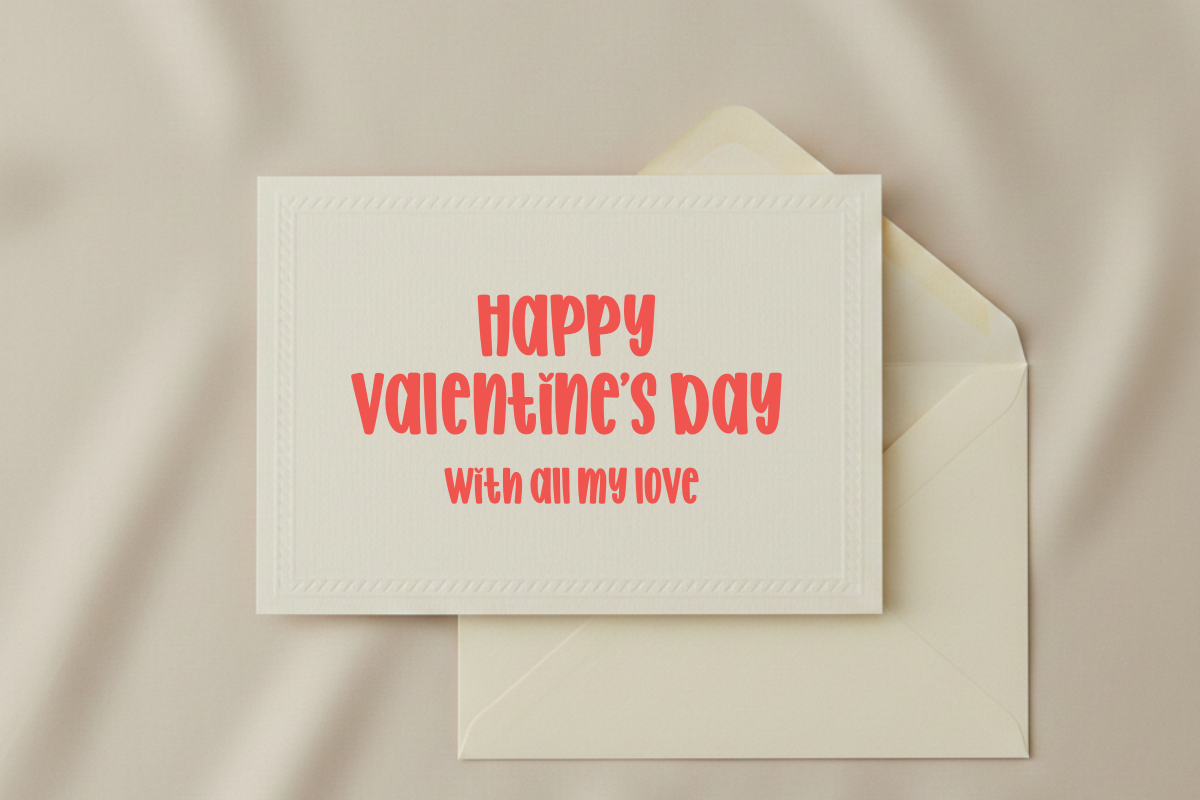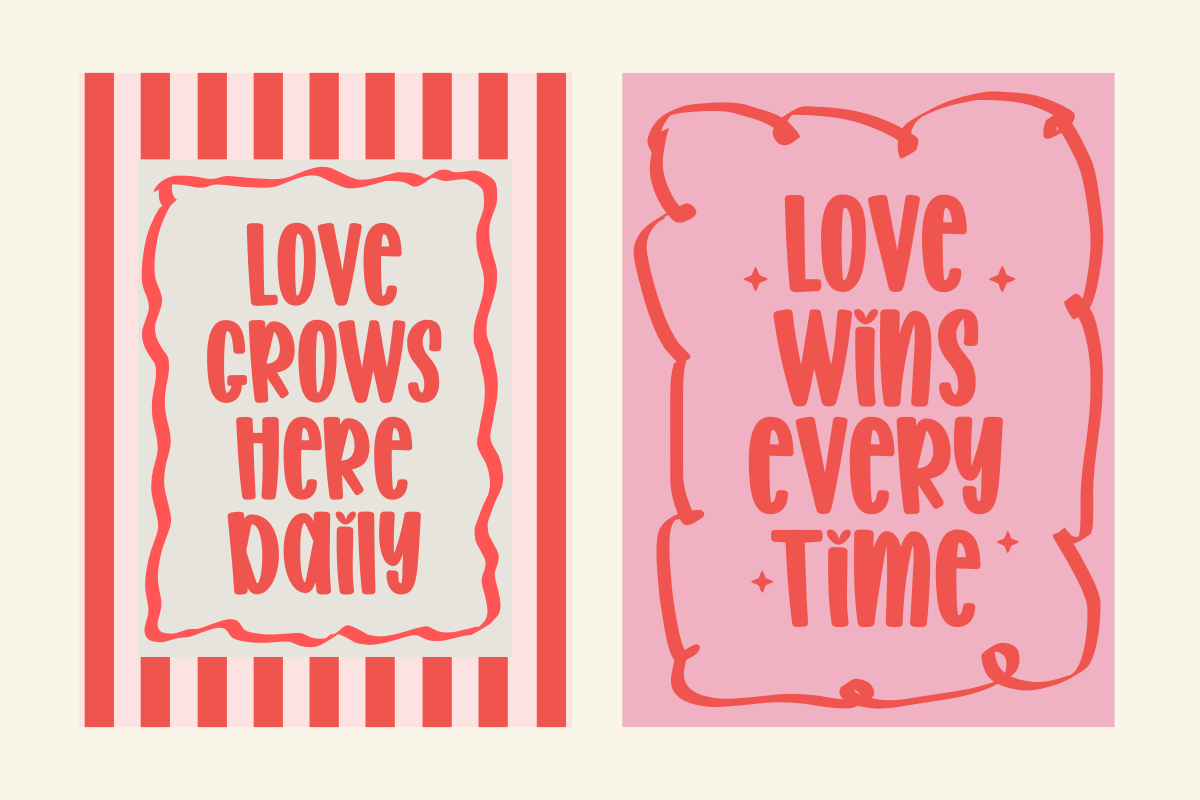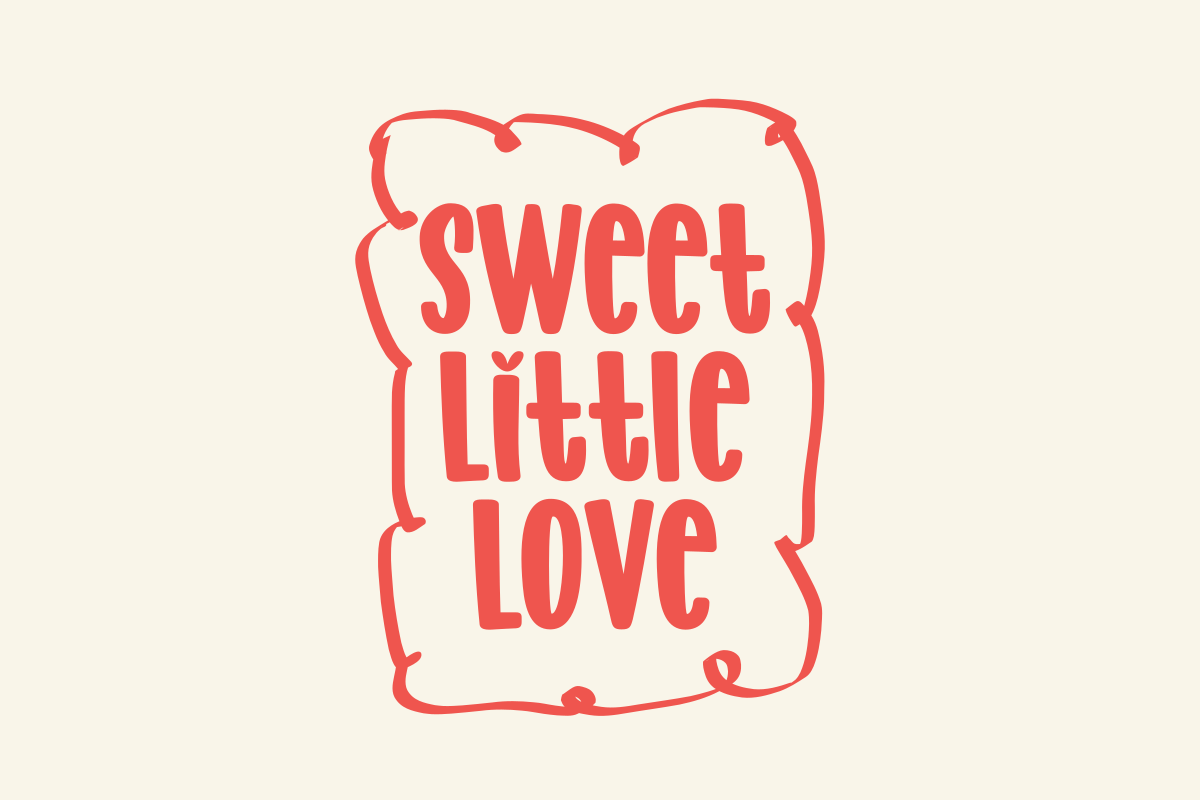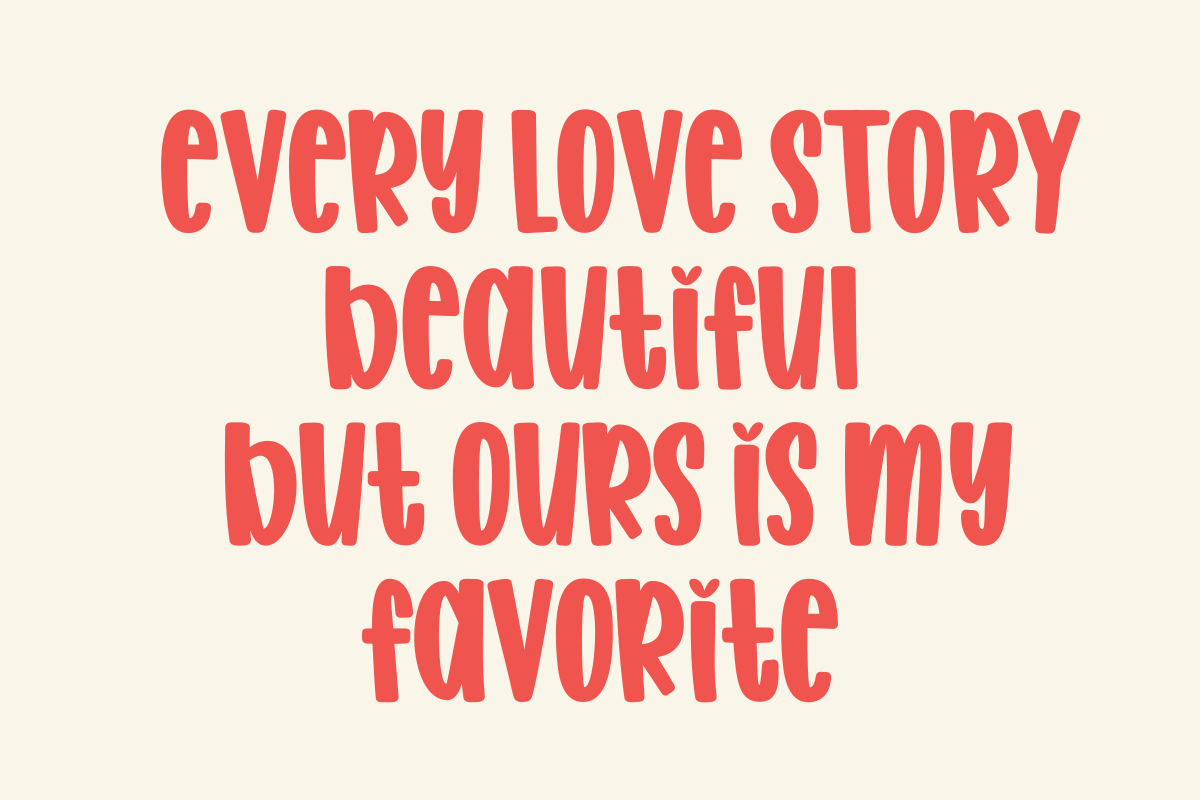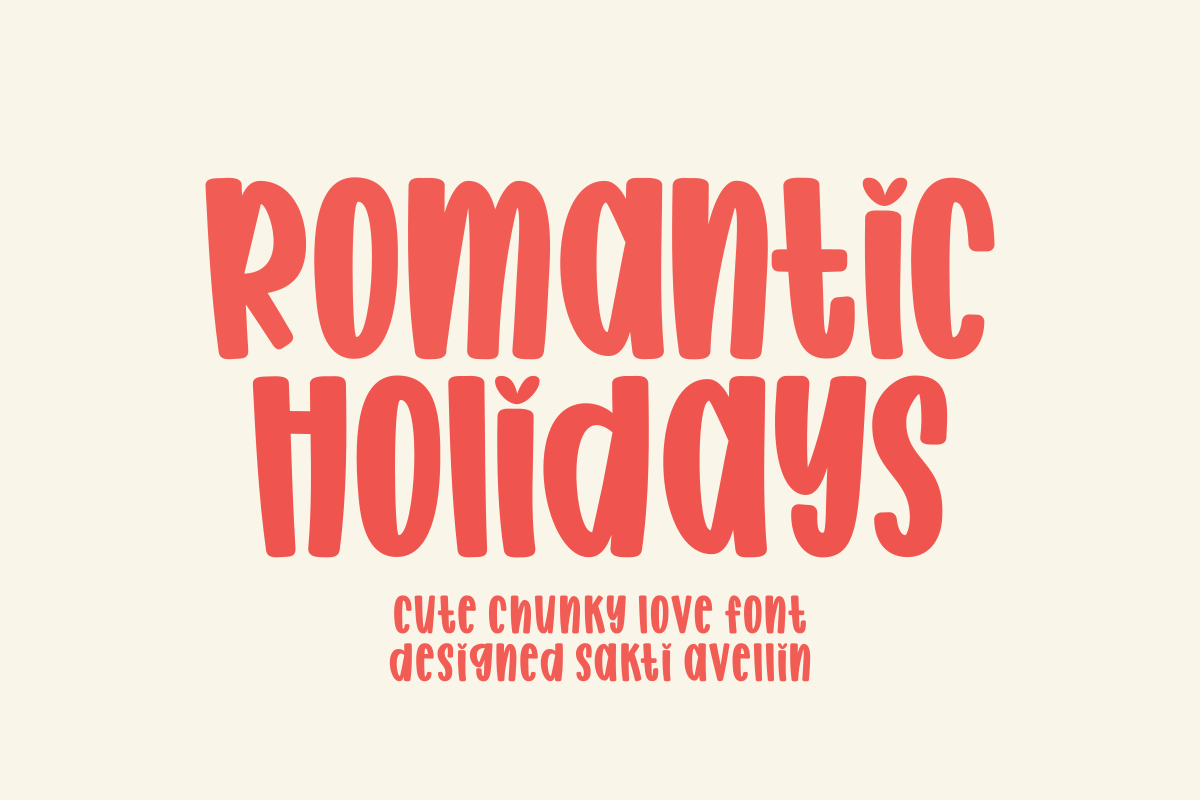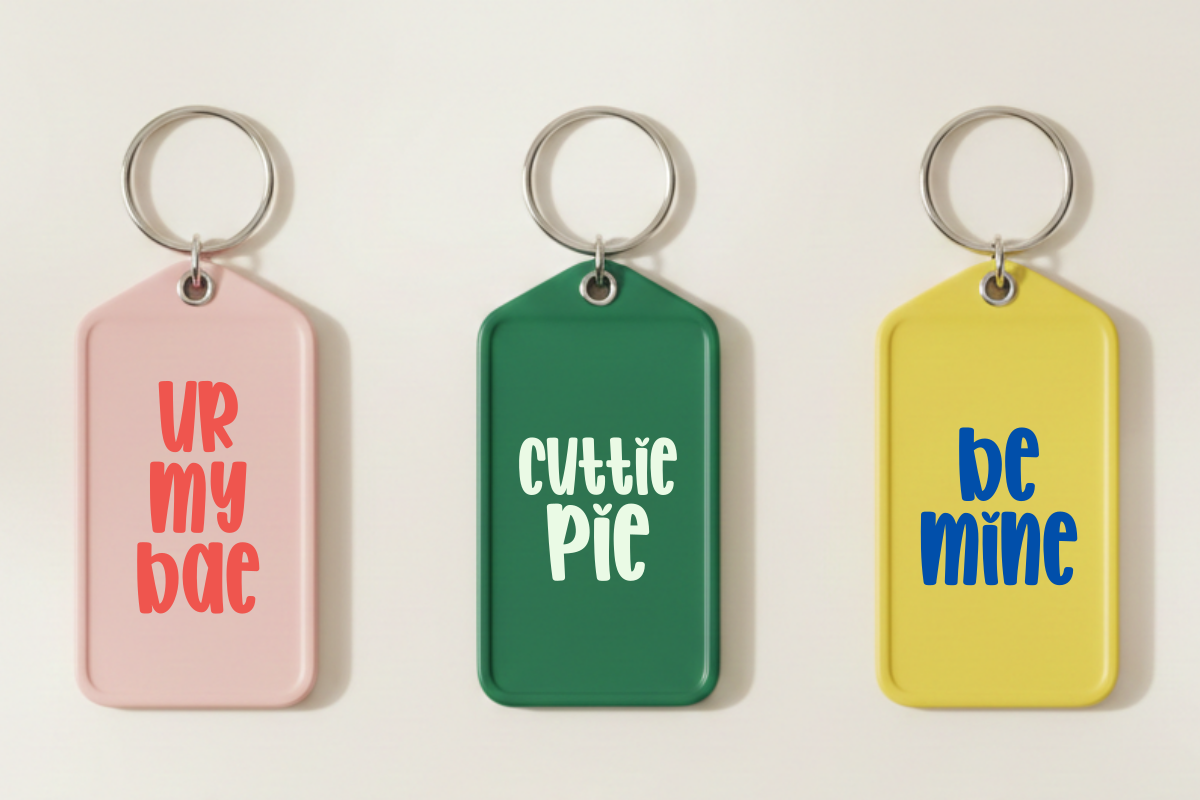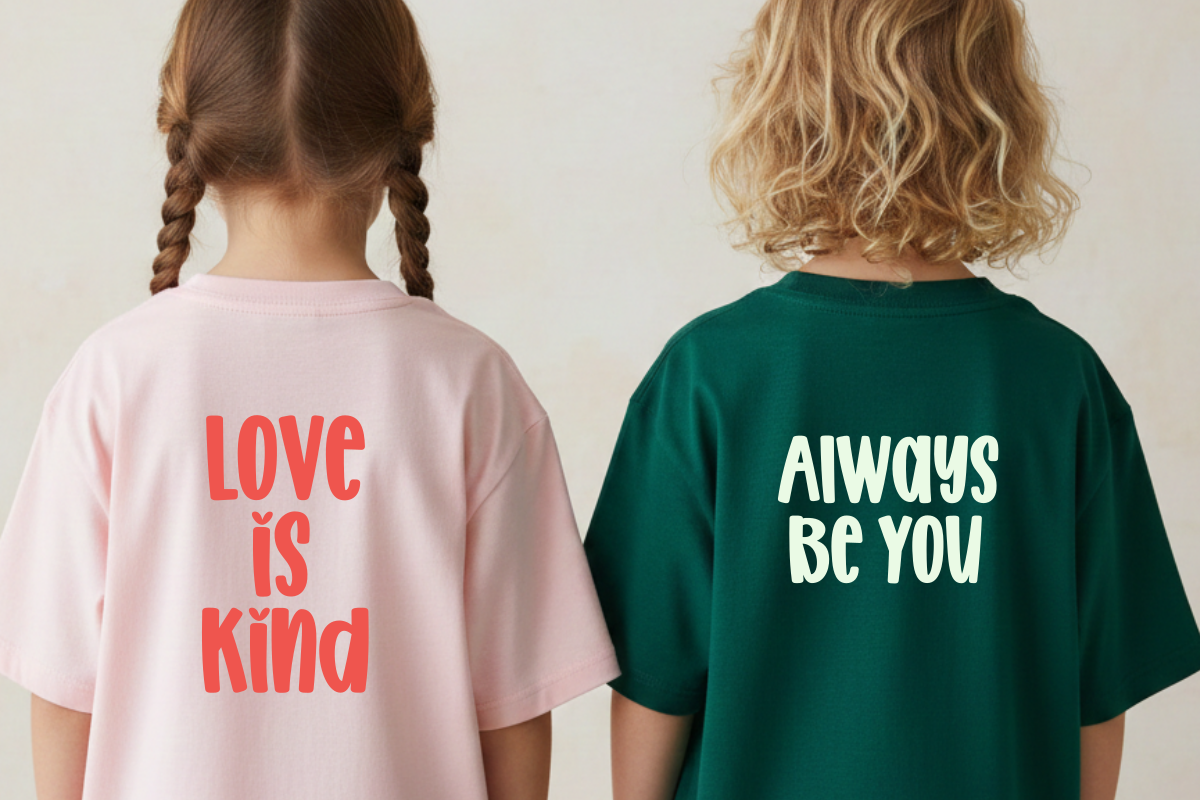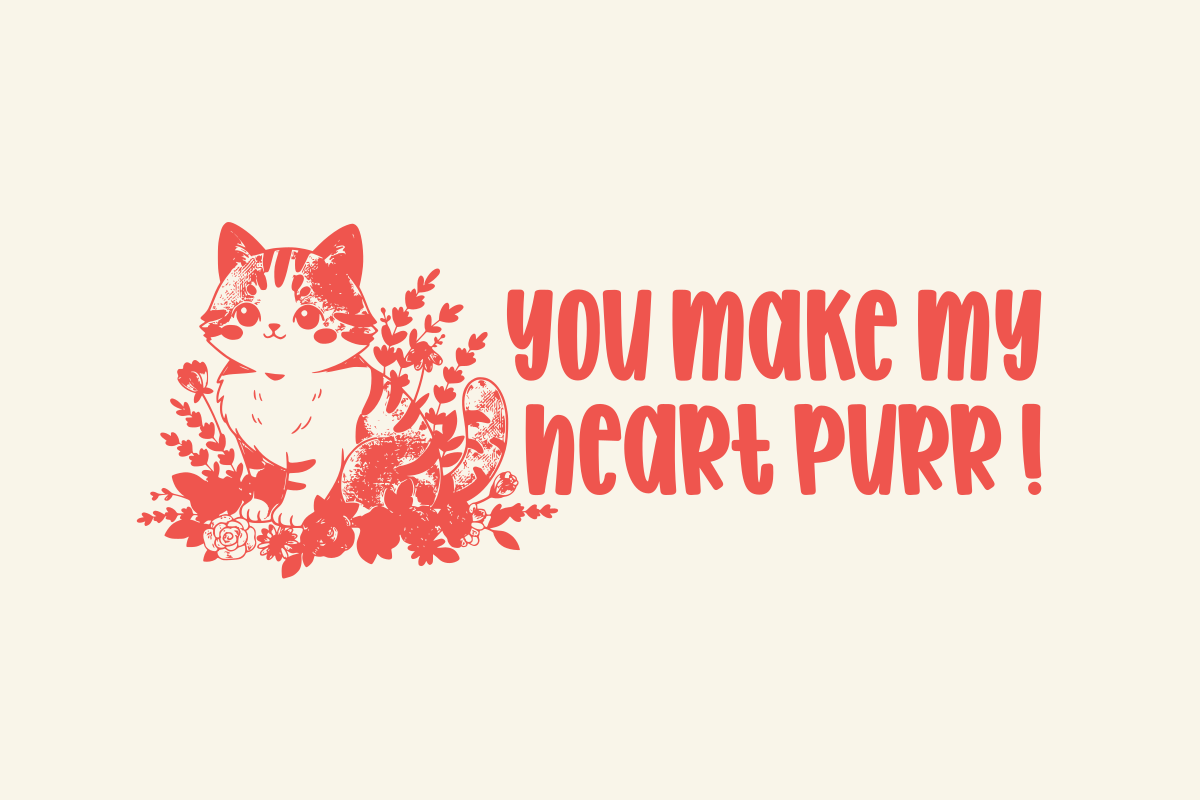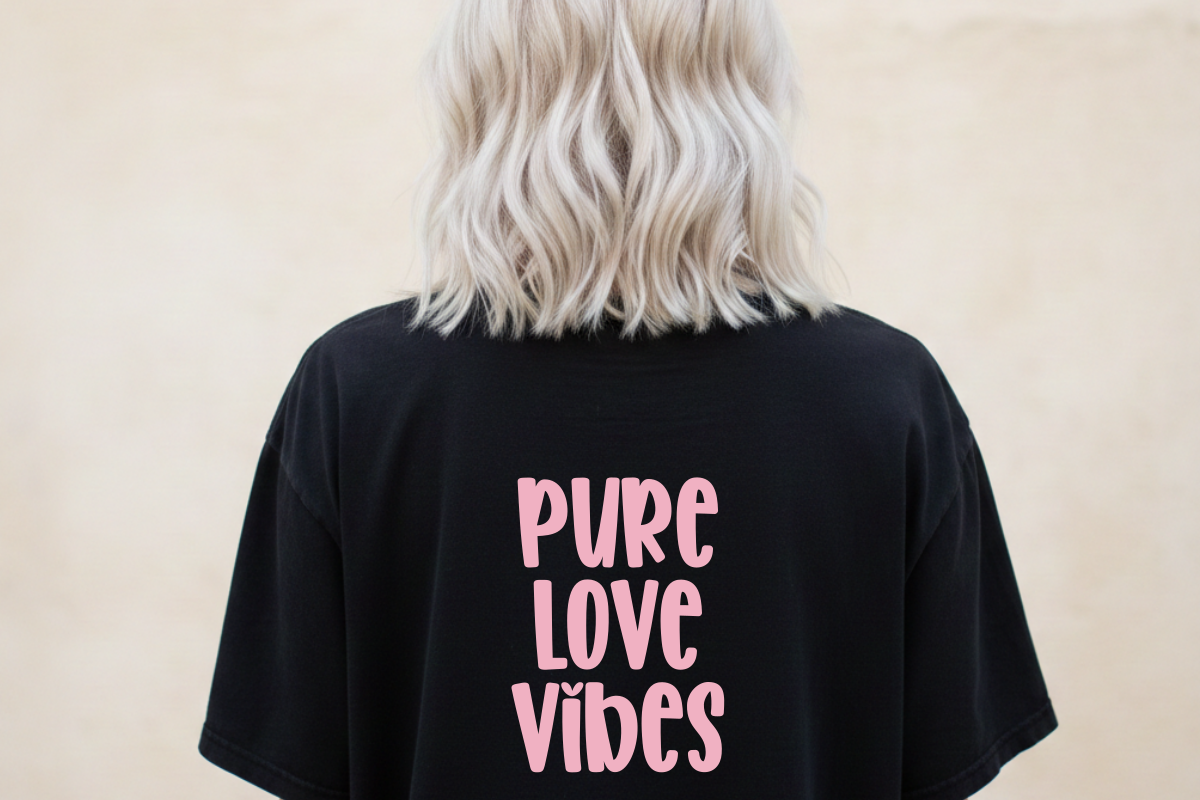
Romantic Holidays - Cute Chunky Font
Romantic Holidays is a cute chunky love font designed to infuse your creative projects with warmth and a playful, romantic spirit. This bold display typeface features tall, rounded, and organic letterforms, making it an ideal choice for Valentine's Day branding, wedding invitations, romantic greeting cards, and heartfelt social media graphics. Its unique charm is highlighted by soft edges and adorable heart-like accents, ensuring your headlines stand out with a sweet and handcrafted aesthetic. Whether you are designing for boutique logos, seasonal apparel, or whimsical stickers, Romantic Holidays adds a lovely and soulful touch to every piece of work.